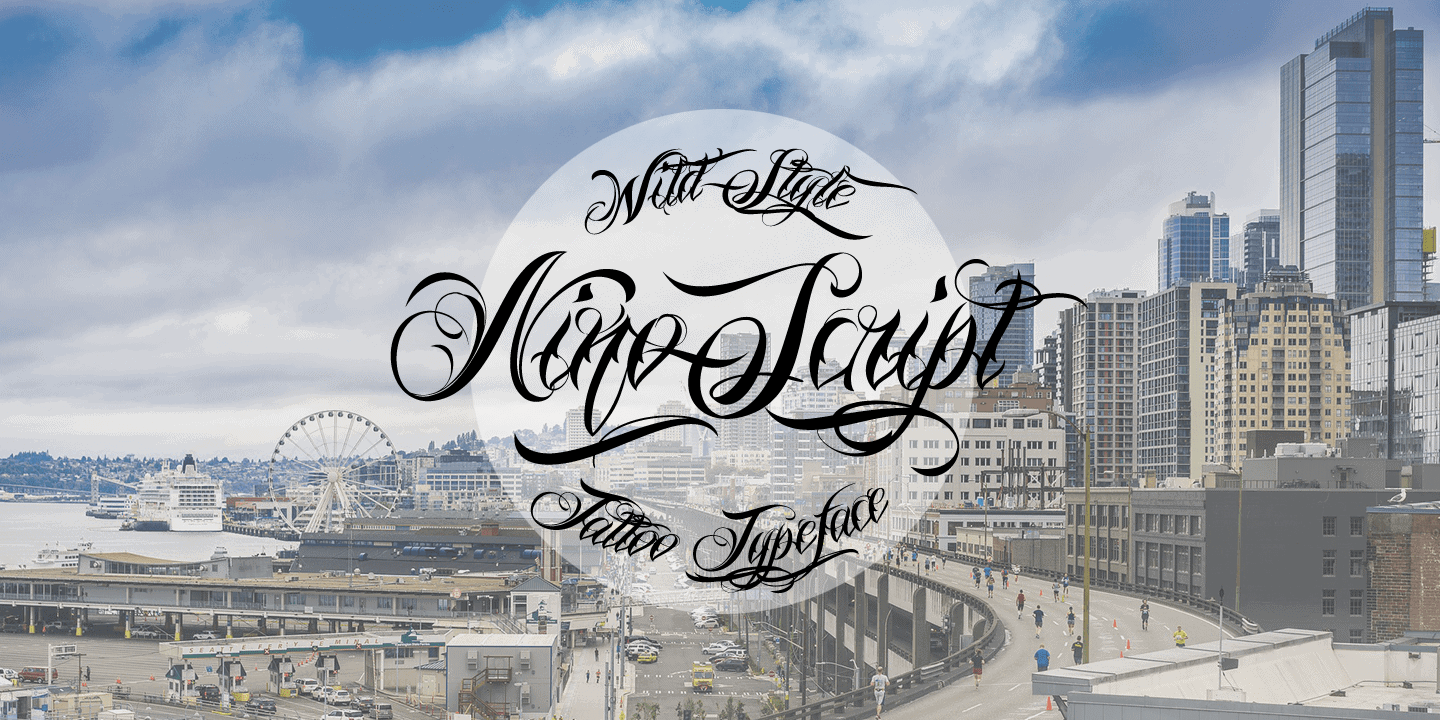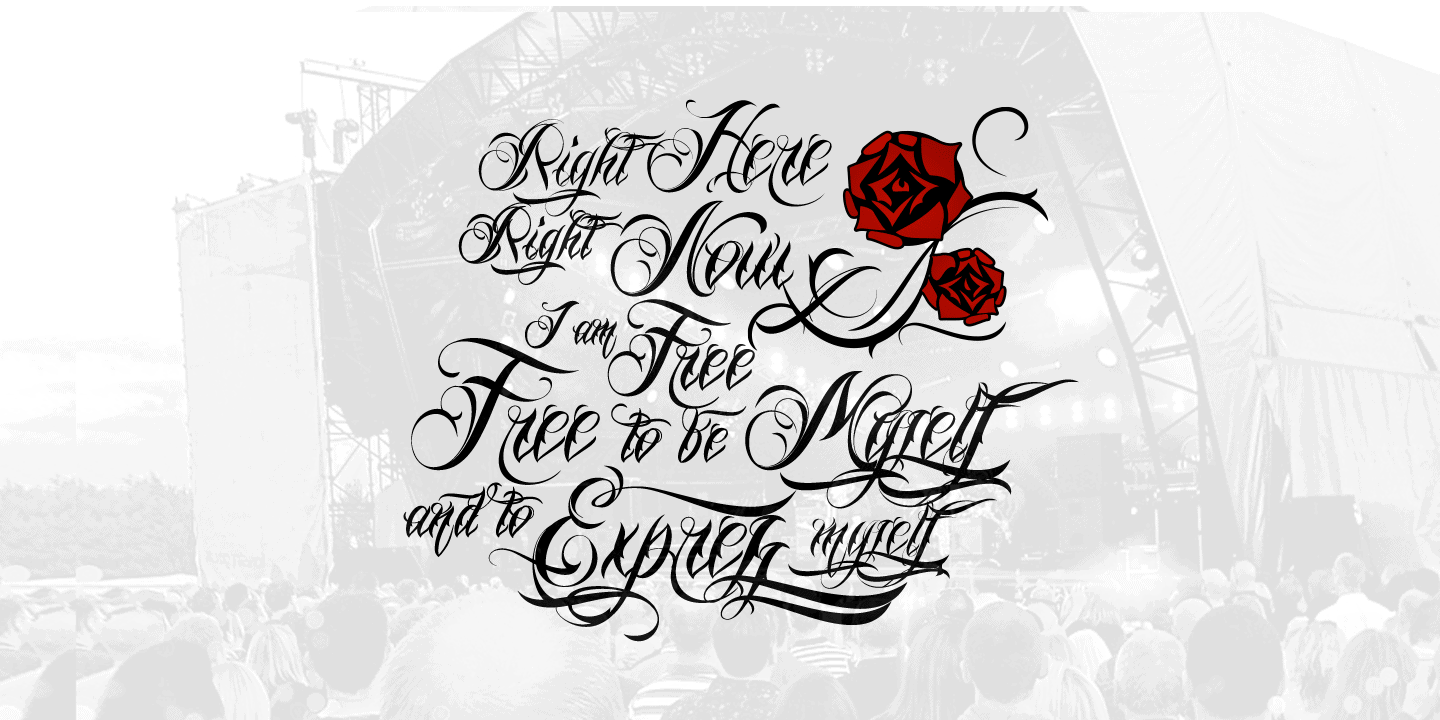
Nino Script
Nino Script is a decorative tattoo typeface.
It has a wild style and ornamental letters that gives a customized appearance to every word.
Use underscore to create a swash. Example: Wild_